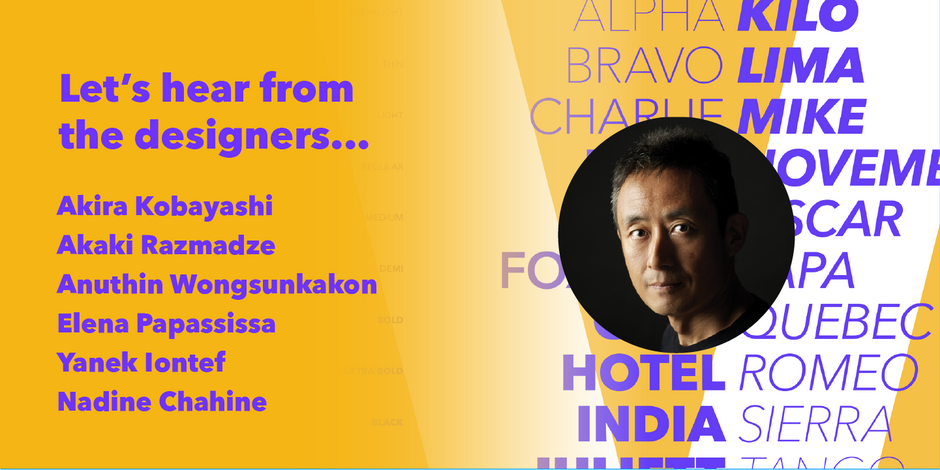
#4 Avenir® Next World by Linotype
Q1: Where did the idea for the typeface come from? Did you set out to address a specific use or suite of the application? Was this a design you’d had in mind for a while?
Ans: The Avenir family was designed in the 1980s as a geometric sans serif with a human touch. Avenir Next is a completely revised version of the original design which has more weight variations, better-drawn letterforms, and typographic features such as small caps and old-style figures. Adrian Frutiger, the original designer of Avenir, and I, also fine-tuned the letterspacing so that the Regular and Medium weights are more suitable for lengthy body text.
Q2: What is the one or two most important things graphic communicators should know about the typeface, or how will the family of fonts help them create better design?
Ans: If your job requires a sans serif type with a clean look, but not sterile, squeaky-clean – like surgical tools under fluorescent light, Avenir Next can be a perfect choice. It’s a geometric sans which retains human warmth. If your message needs to be published in several languages, to reach broader audiences in different countries and do so with the same atmosphere, Avenir Next World will be the font suite that meets the goals.